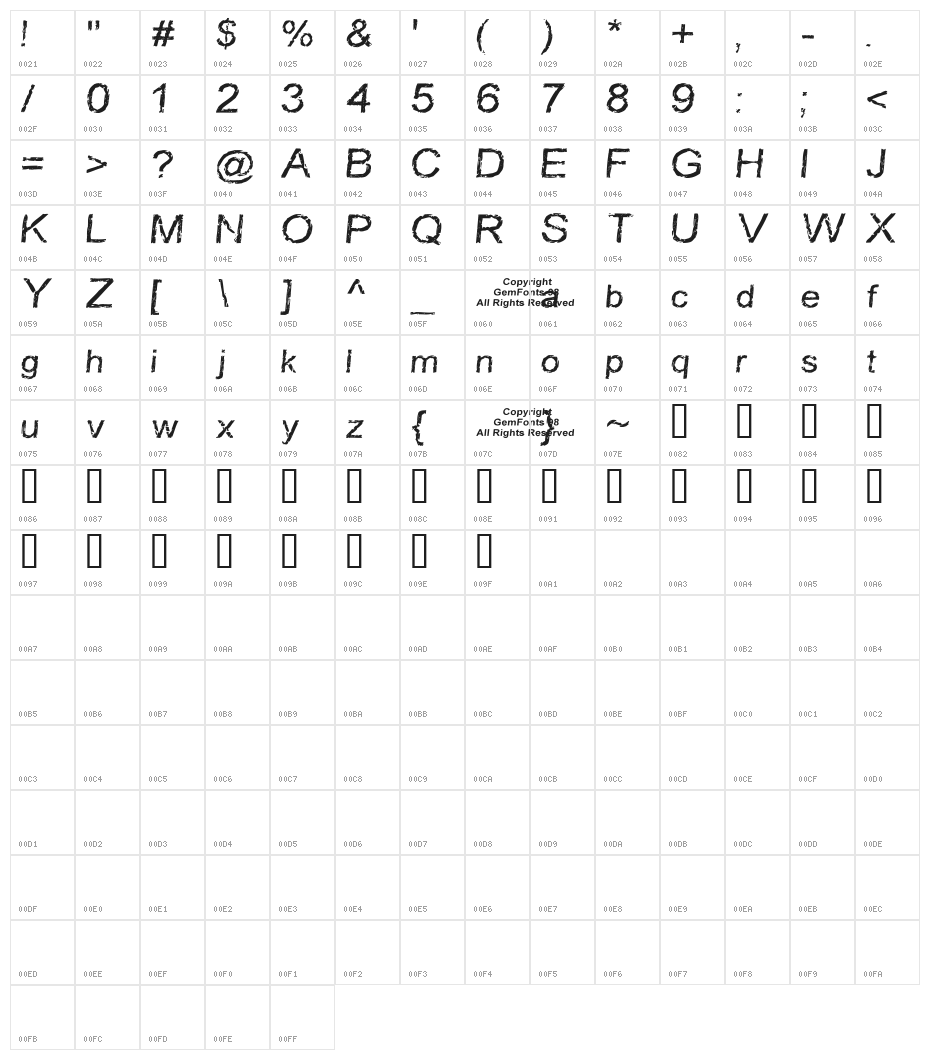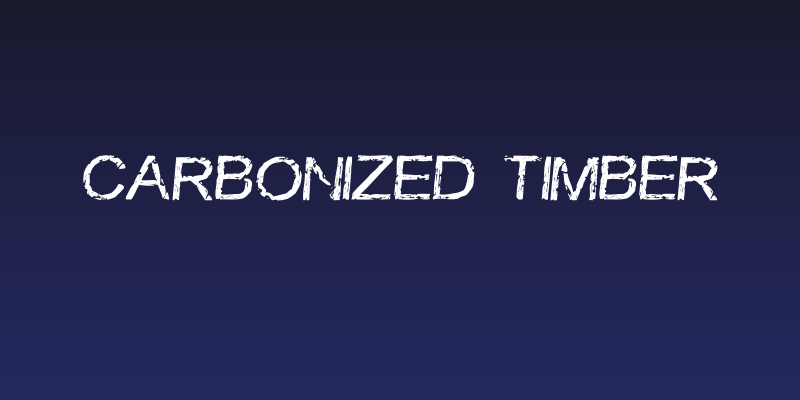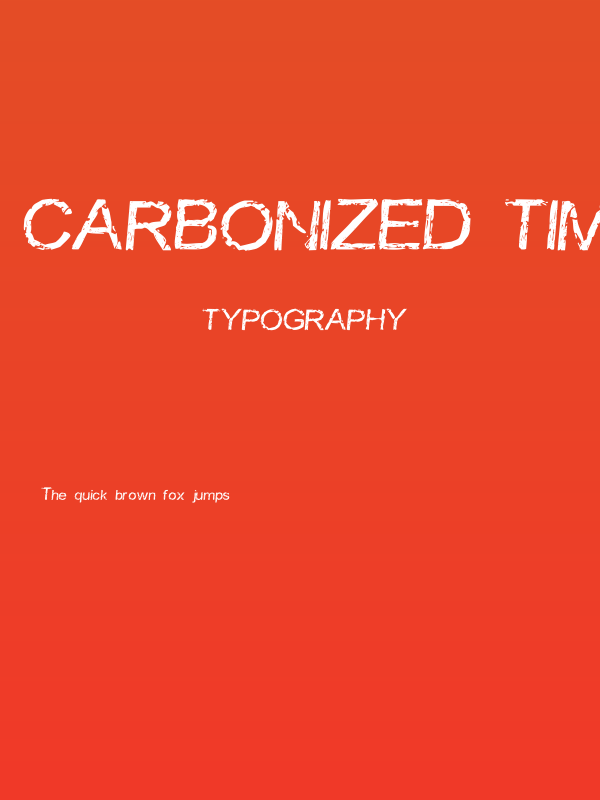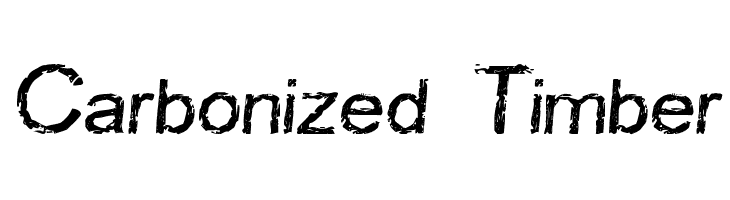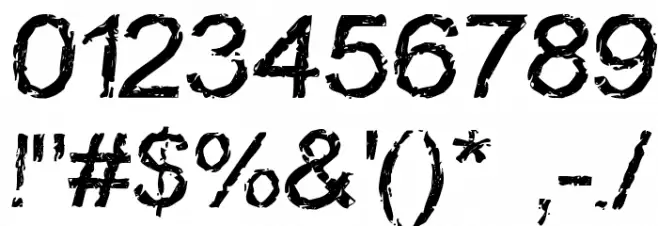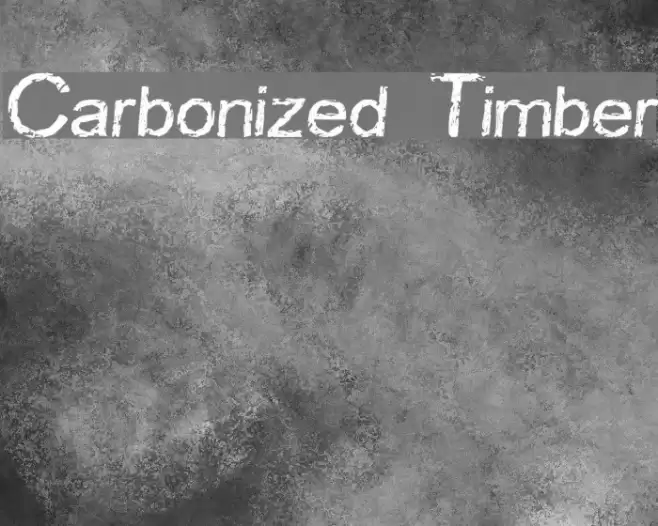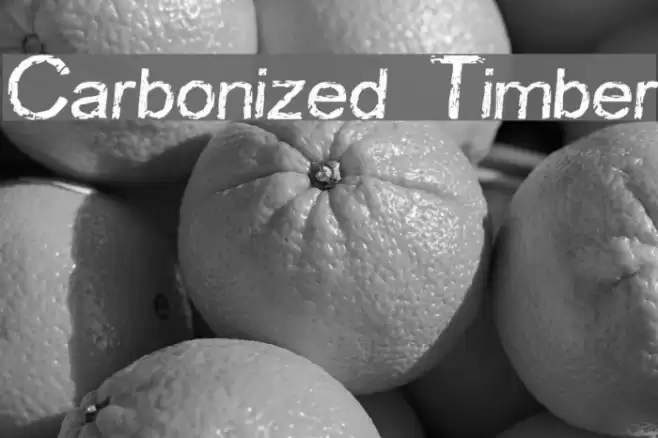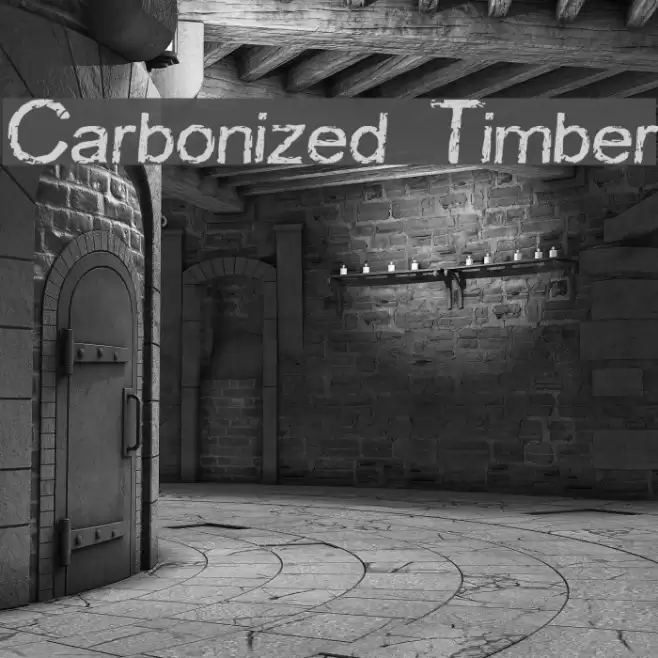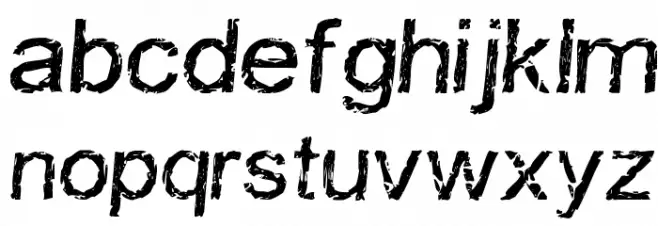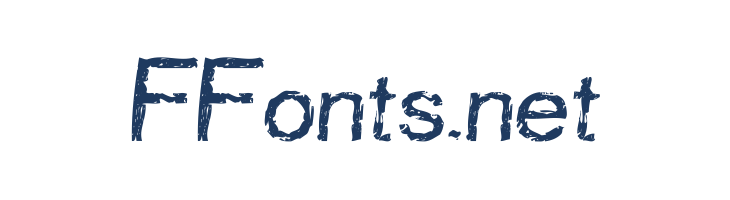
Carbonized Timber Font
| श्रेणियाँ | Broken |
| समग्र शैली | Decorative |
| उपयोग का मामला | Headlines, Logos, Posters |
| सुझाए गए प्रोजेक्ट | Ideal for projects that require a rustic or grunge aesthetic, such as posters, album covers, branding for outdoor or adventure-themed products, and artistic designs. |